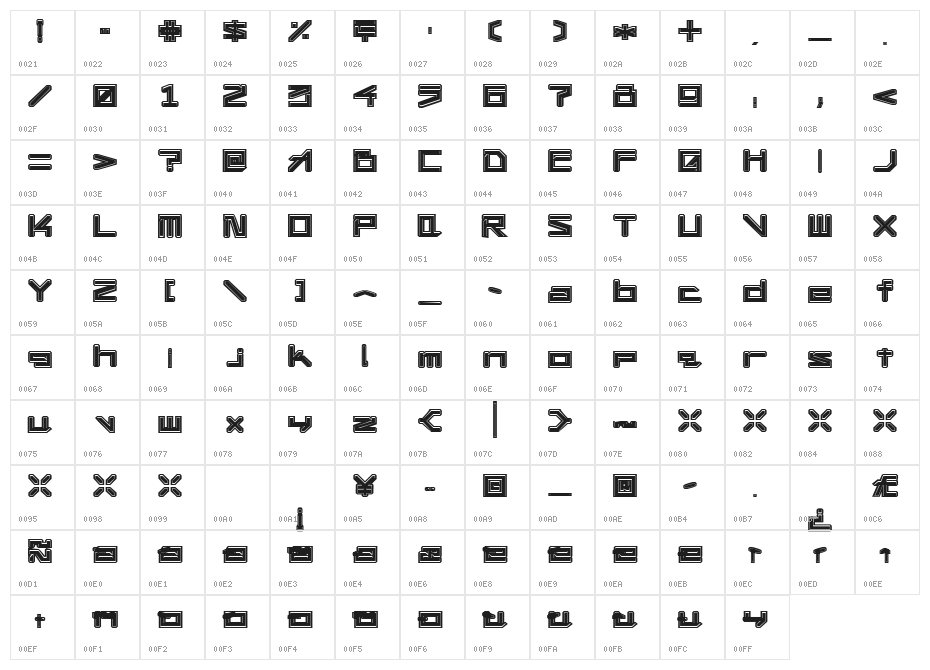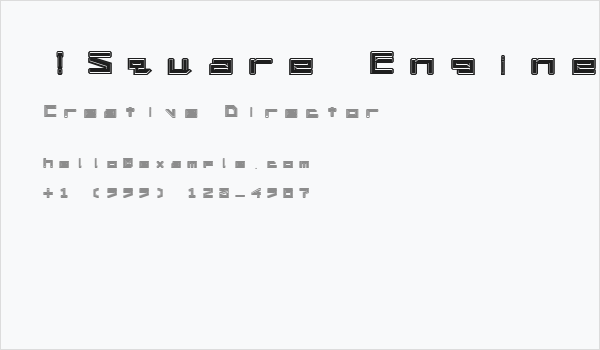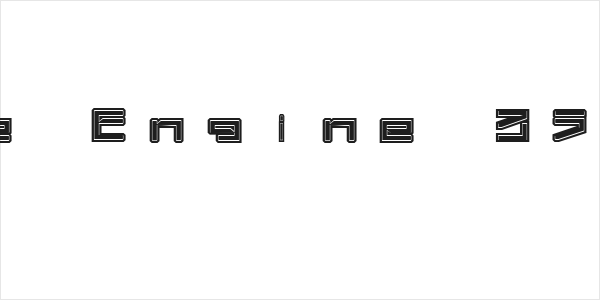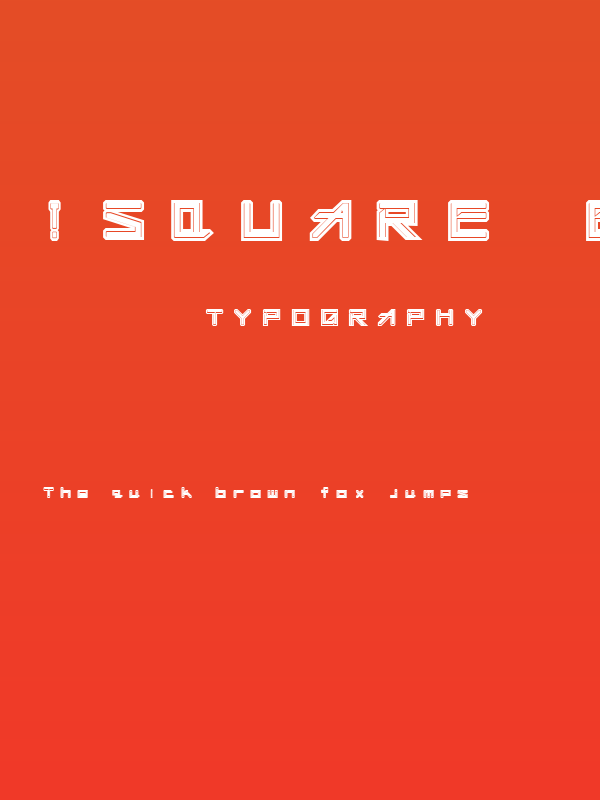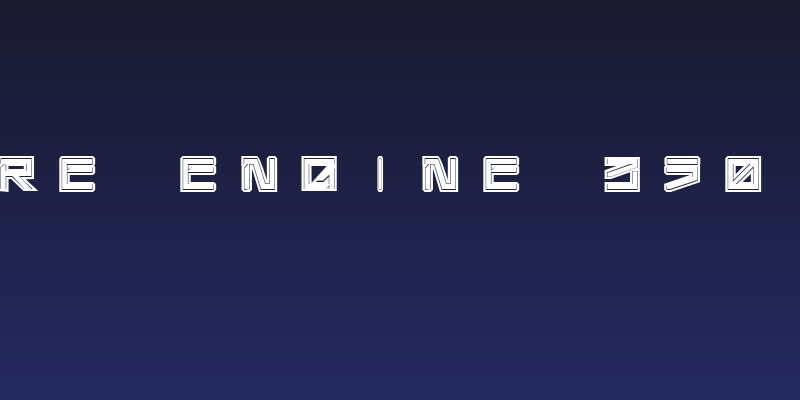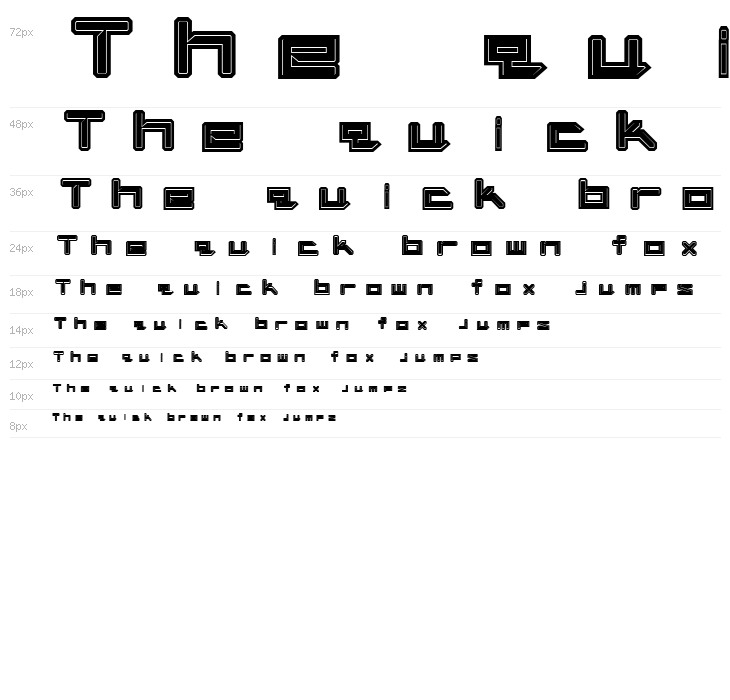
!Square Engine 350 Latex Font
!Square Engine 350 Latex Description
This font features a futuristic and mechanical design, characterized by its bold, geometric shapes and angular lines. Each character is crafted with a distinct outline, giving it a three-dimensional appearance. The uppercase letters are particularly striking, with sharp edges and a blocky structure that suggests a sense of strength and stability. The lowercase letters maintain the same geometric style, ensuring consistency throughout the typeface. Numbers and special characters are designed with the same attention to detail, making them easily recognizable and visually appealing. This font's unique style makes it ideal for projects that require a modern, tech-inspired aesthetic.
| Proposed Projects | Ideal for tech branding, video game titles, sci-fi posters, and futuristic-themed designs. |